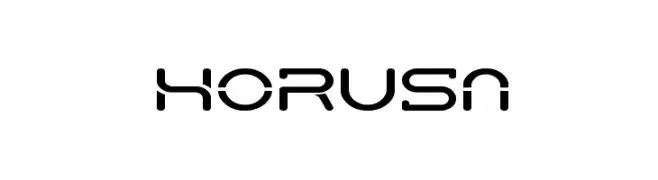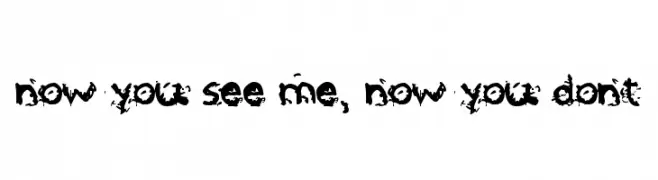
( Matias Romero - matiasromero.deviantart.com/ )
A collection of historical symbols used for communication by itinerant workers.
( Parker Creative - Alan Parker - fontbundles.net/parker-creative )
A modern, light sans-serif font with low contrast and normal spacing, ideal for clear communication.
( RaseOne Full Time Artists - www.graffitifonts.com )
A structured, easy-to-read font ideal for educational use, featuring lined guidance for handwriting practice.
( Ricardo II )
A futuristic, segmented font with geometric and digital aesthetics.
( Typodermic Fonts - Ray Larabie - www.typodermicfonts.com/ )
A modern sans-serif font with geometric shapes and uniform strokes.
( Woodcutter - woodcutter Manero - www.woodcutter.es )
A rugged, stone-like font with a textured, bold appearance.
( cody - Codin Repsch )
A geometric, crystal-inspired font with sharp angles and bold presence.
( jopea302 - Julio Mendez - twitter.com/jopea302 )
A distressed, grungy font with bold, textured characters.
( Chandan Acharja - www.charuchandan.com )
A clean, modern sans-serif font with consistent stroke width and excellent readability.
( DaShiz )
A dotted handwriting guide font for educational use.